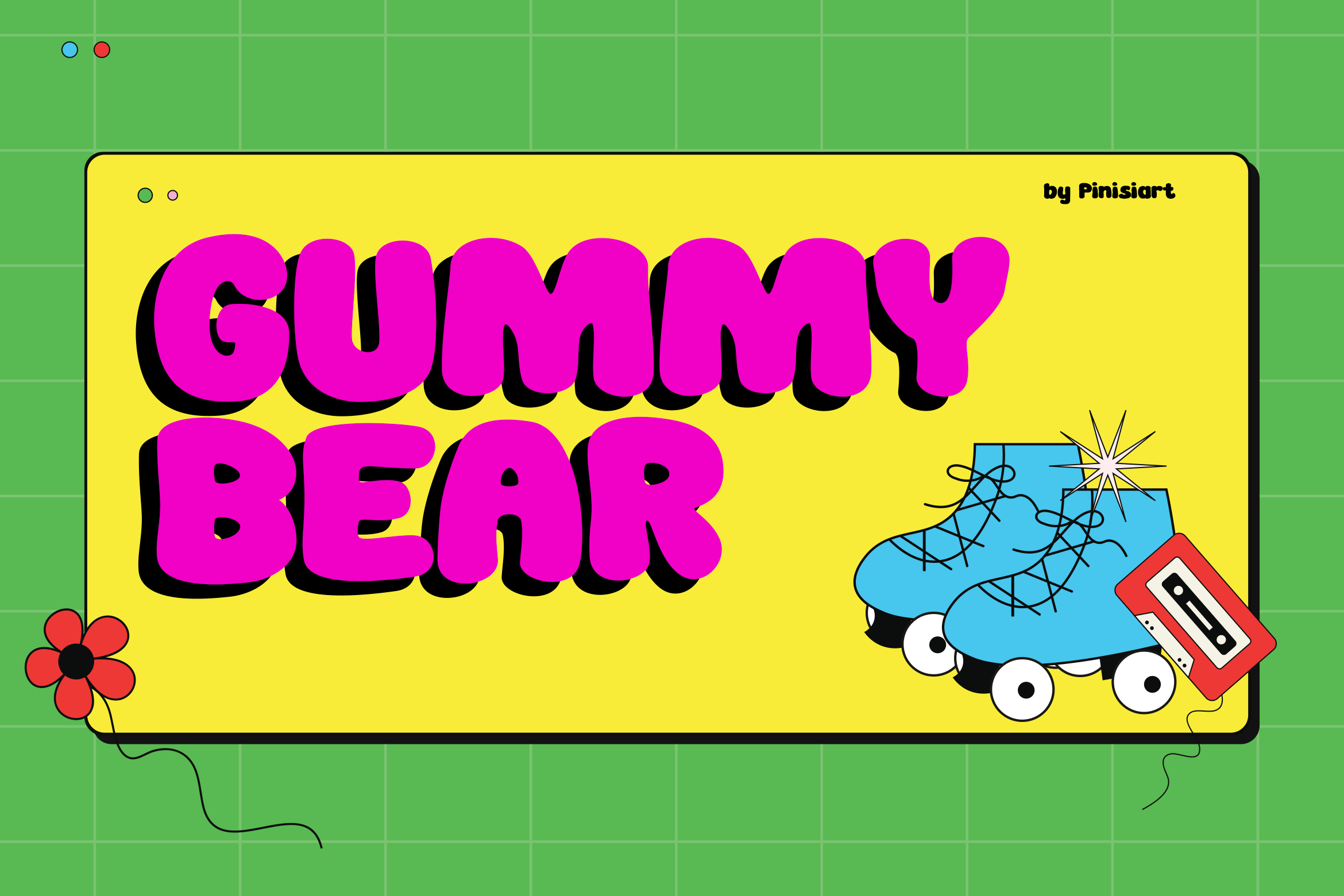
Gummy Bear - Pop Art Font
Suit perfectly for fun encouraging themes books market, music retro poster, stationary, school supplies font, youtube covers, youtube thumbnails, social media page covers, and so on…